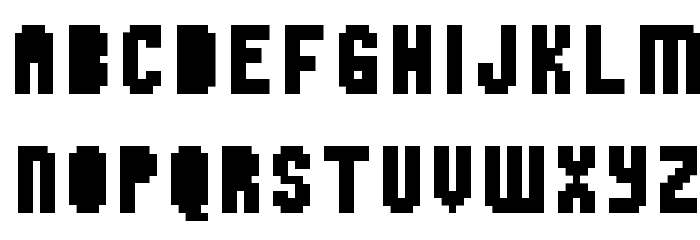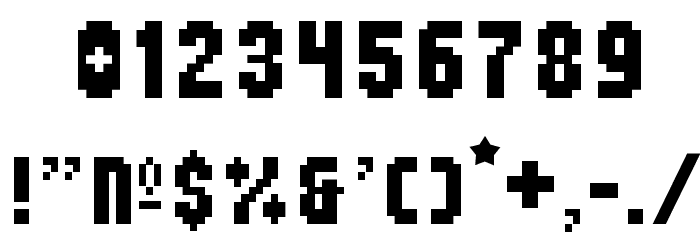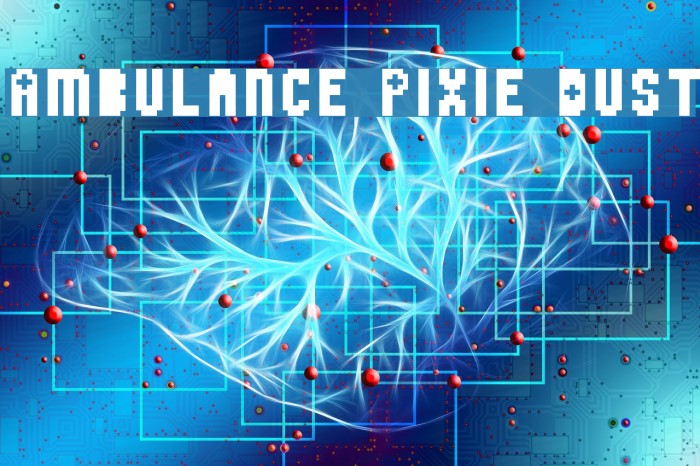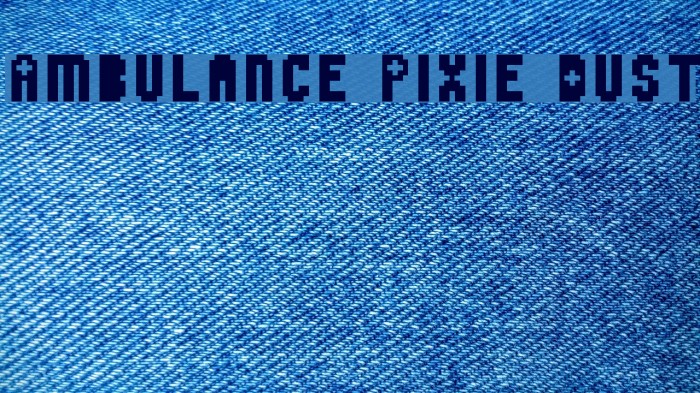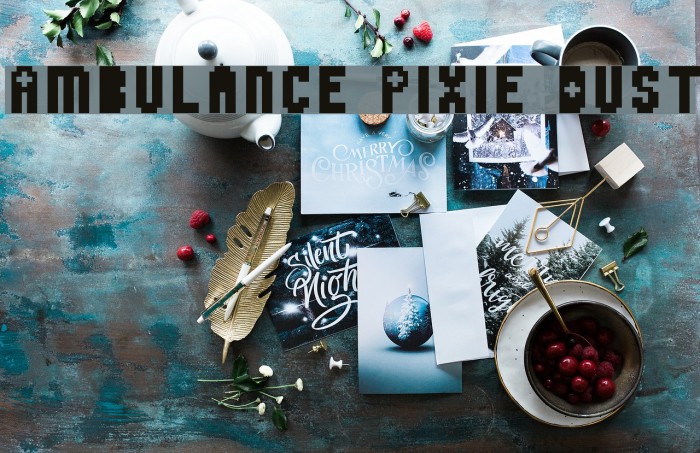
Ambulance Pixie Dust Font
This font features a bold, pixelated style reminiscent of retro video games and digital displays. Each character is constructed with a blocky, geometric design, giving it a distinct and playful appearance. The uppercase and lowercase letters maintain a consistent height, contributing to a uniform look. Numbers and special characters follow the same pixelated theme, ensuring a cohesive aesthetic throughout. The font's unique style makes it stand out, with a nostalgic nod to early computer graphics. Its boldness and simplicity make it easily readable, even at smaller sizes.
A bold, pixelated font with a retro digital style.
- Proposed Projects: Ideal for video game designs, retro-themed posters, digital art projects, and any creative work that requires a nostalgic, playful touch.
- Overall Style: Retro, Playful